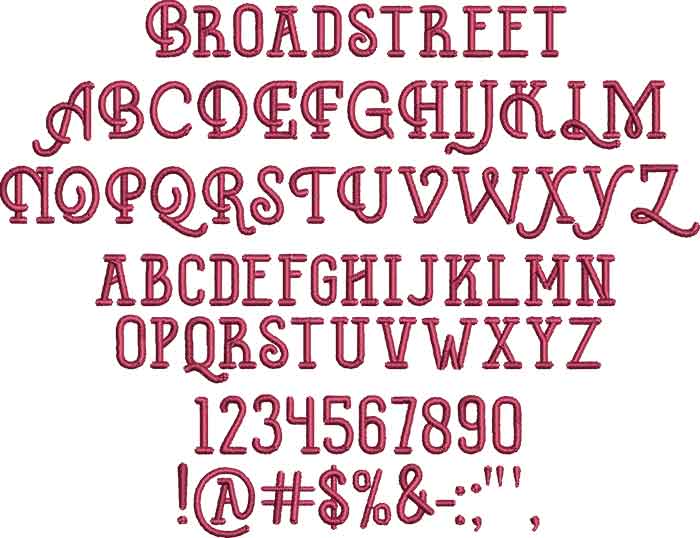
BX Embroidery Font: Broadstreet
BX Embroidery Font: Resizable decorative serif font with small caps lowercase for closest point connections.
BX embroidery font:
Broadstreet is an all-purpose serif machine embroidery font that includes A-Z, a-z, 0-9 and the following punctuation: !@&()-+,.?/. 4 sizes.